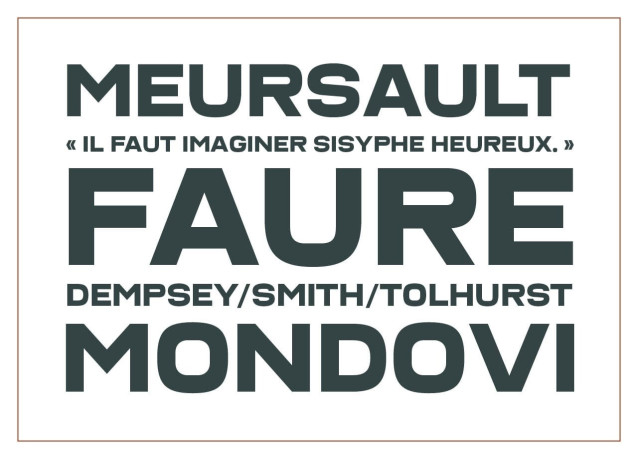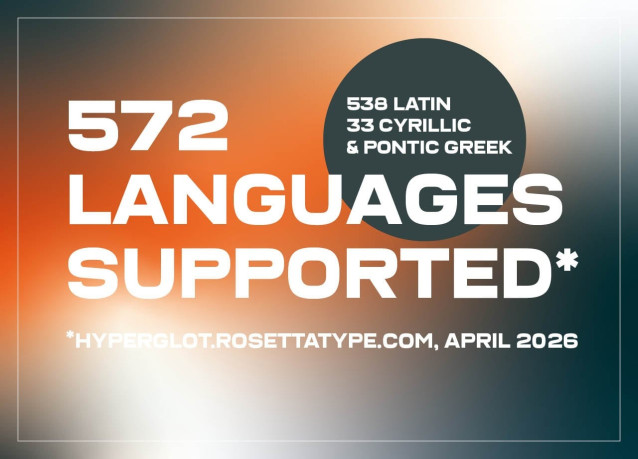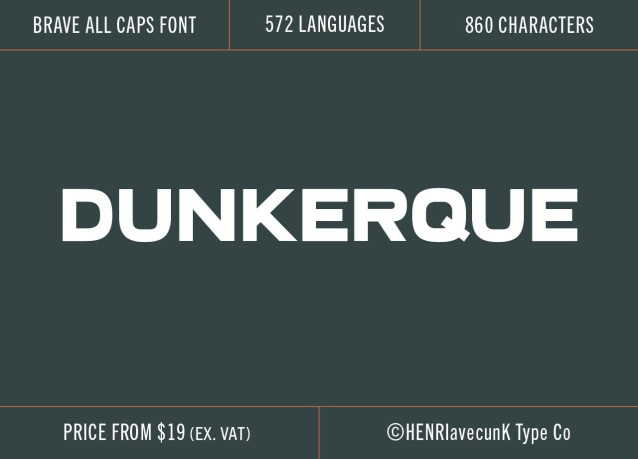
Dunkerque Font is an all-caps typeface created to deliver a bold and memorable impact. Its strong, structured letterforms express confidence and force, making it ideal for headlines, logos, and branding that need to stand out.
With 860 characters and support for 572 languages, Dunkerque is highly versatile and suitable for global communication. It allows designers to maintain a consistent and powerful visual identity across different regions and languages.
The all-caps design enhances its commanding presence. Each letter is carefully balanced, giving the font a modern yet timeless feel. Its bold weight ensures clear readability while emphasizing strength and clarity.
Dunkerque is designed to capture attention instantly, it leaves a lasting impression in both print and digital design.